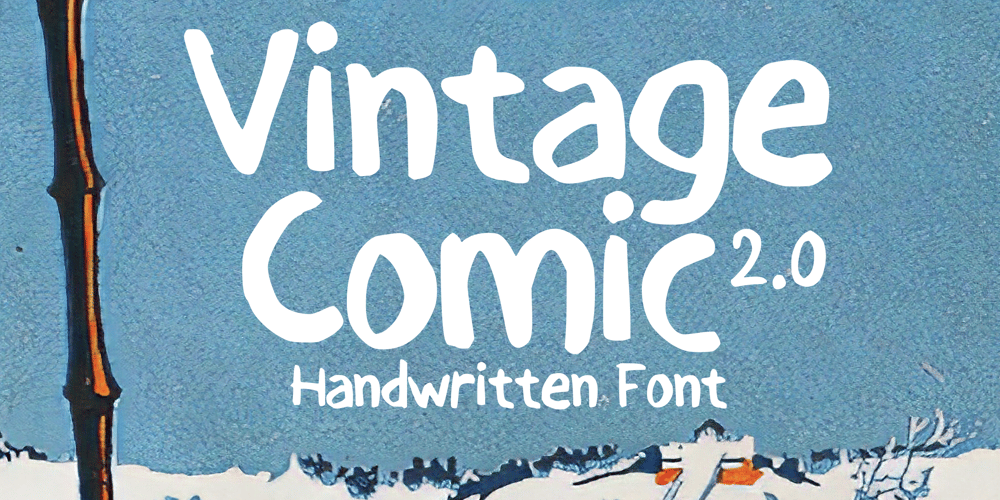
Vintage Comic 2.0
Vintage Comic 2.0 font
Vintage Comic 2.0 Font Family was designed by Gabriel Valentinus and published by Mvmet. Vintage Comic 2.0 contains 1 styles and family package options. Vintage Comic 2.0 is a vintage comic-style font suitable for various projects and now comes with new version which include English, French, German, Italian, and Spanish. You can use it for anything ranging from t-shirts, kids’ book designs, and greeting cards to stickers and posters, or anything that needs a casual touch. Fall in love with its incredibly versatile style and use it to create lovely designs!